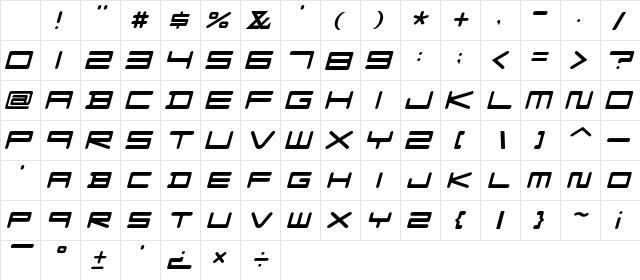
Complete F-Zero GX Venue Font SemLtOb Italic glyph index. Displaying only characters natively supported by F-Zero GX Venue Font SemLtOb Italic font.
F-Zero GX Venue Font SemLtOb is a composed and adaptable typeface that performs quietly and consistently across a wide range of design contexts. The slanted form adds forward momentum and visual energy.